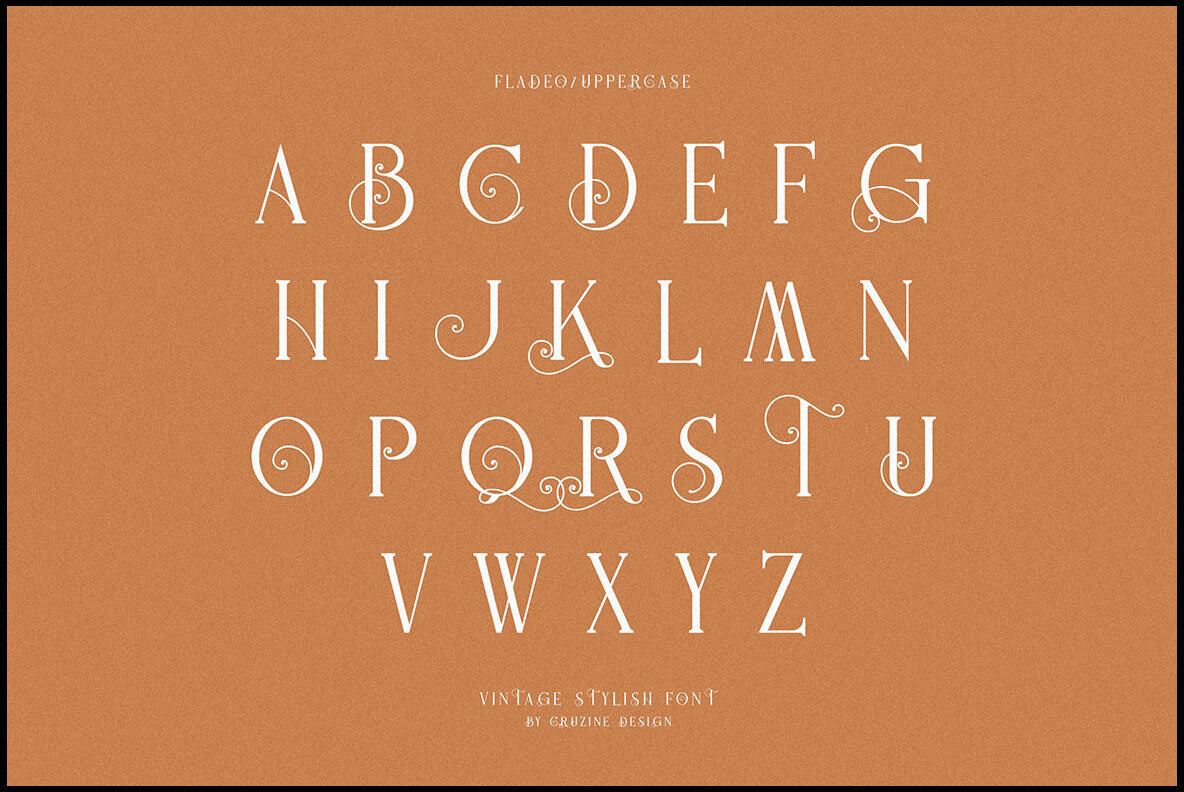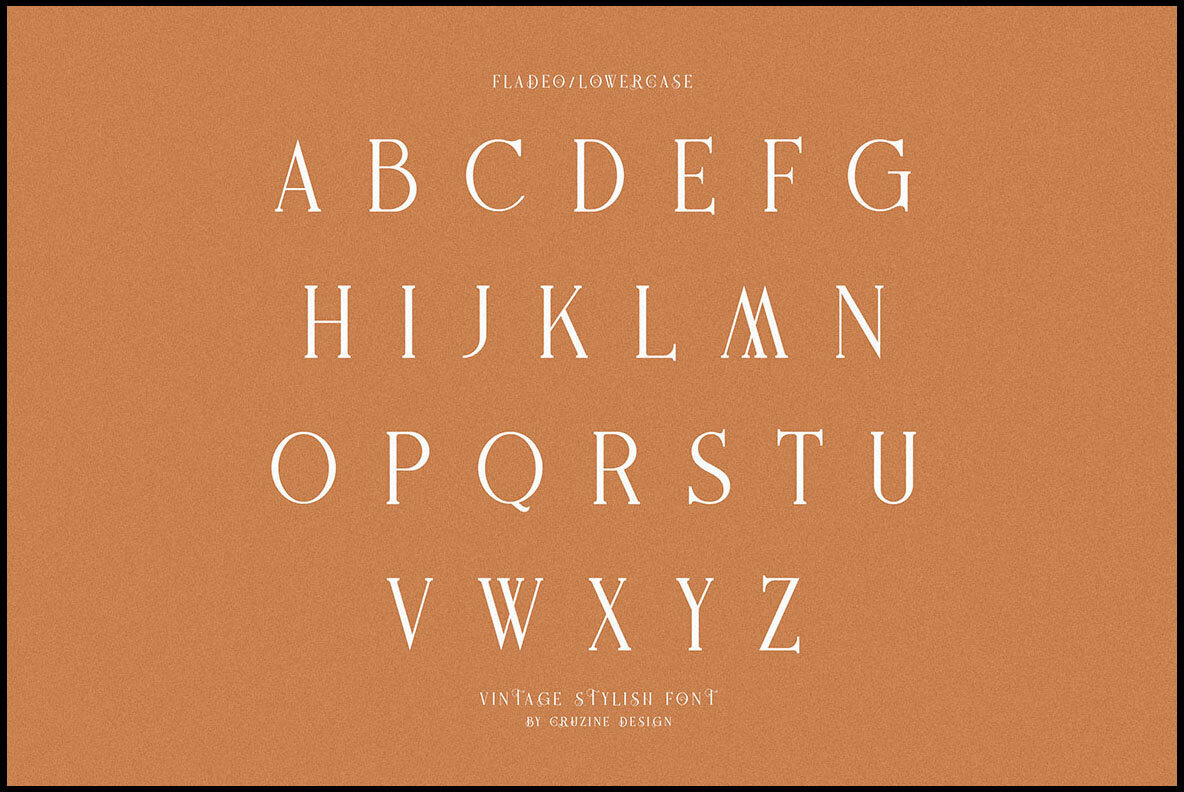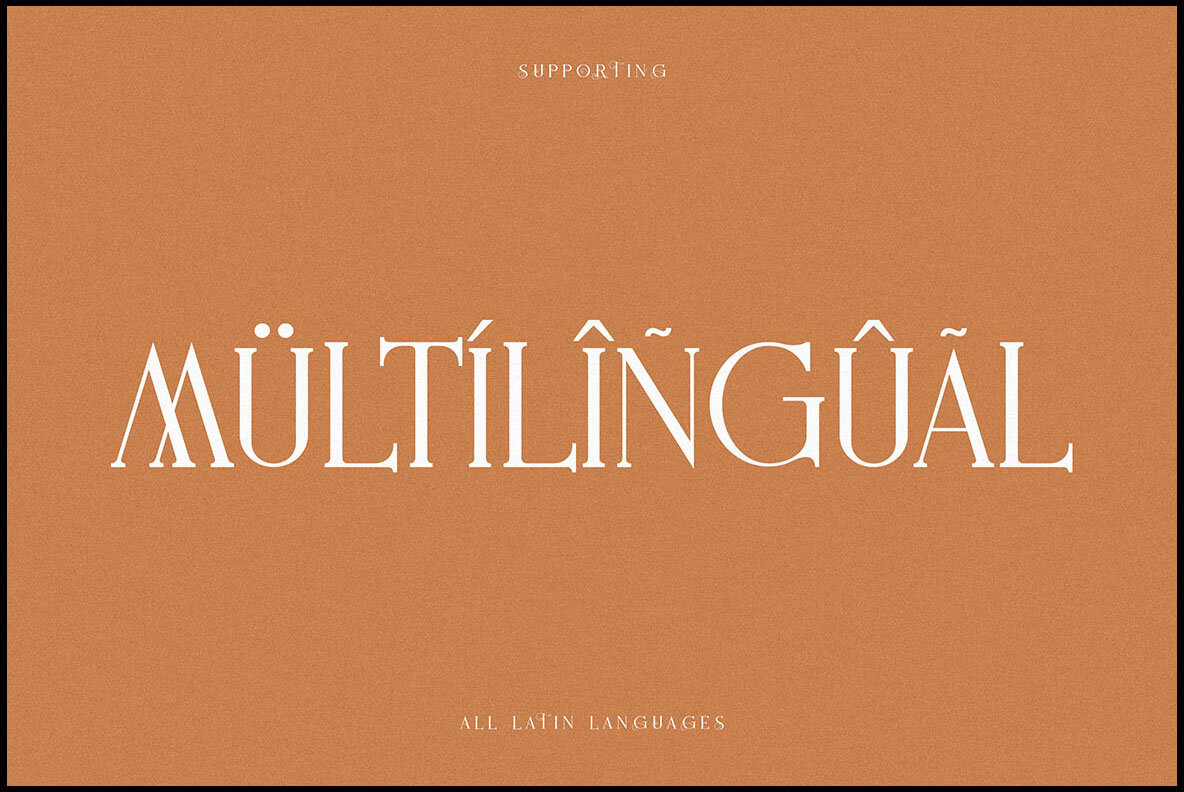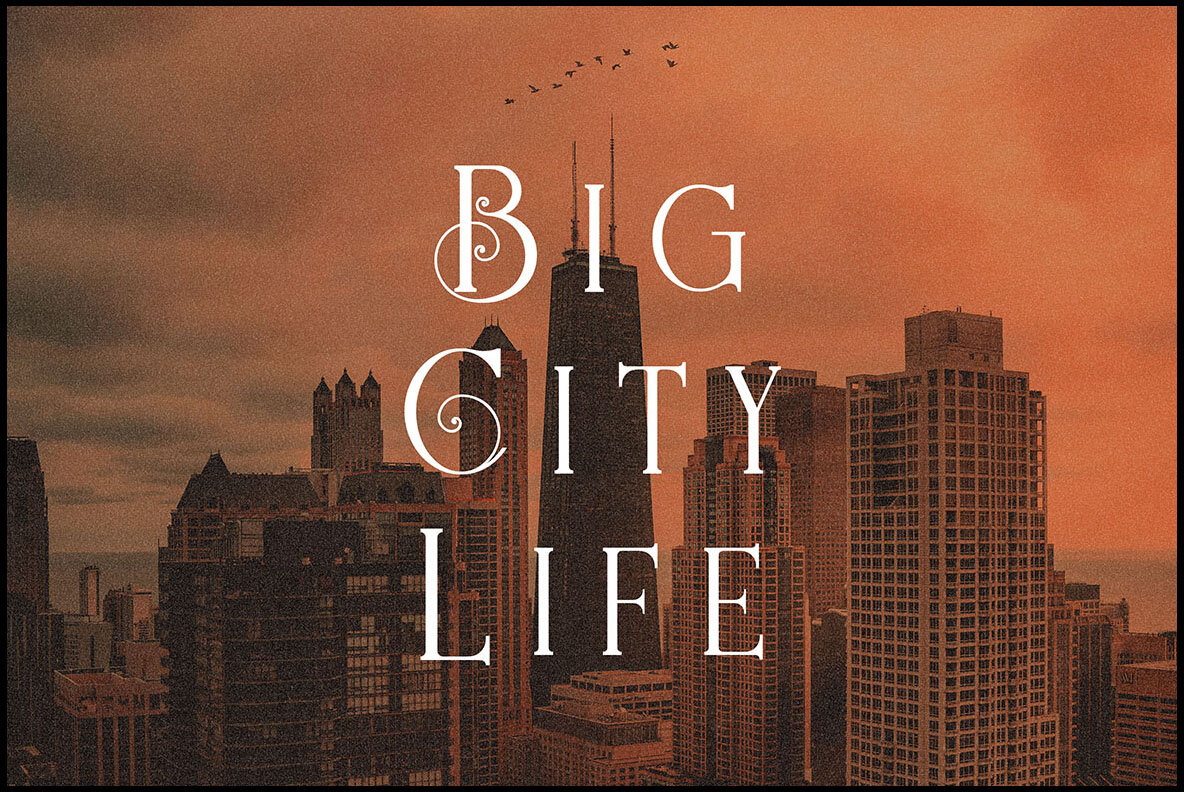
Fladeo Font
Fladeo Regular
Fladeo is a unique, fancy serif font that blends modern elegance with decorative flair. Ideal for use in branding and logo design, this typeface is equipped with multilingual support, ensuring global application.Fladeo: Elegant & Decorative Serif Font